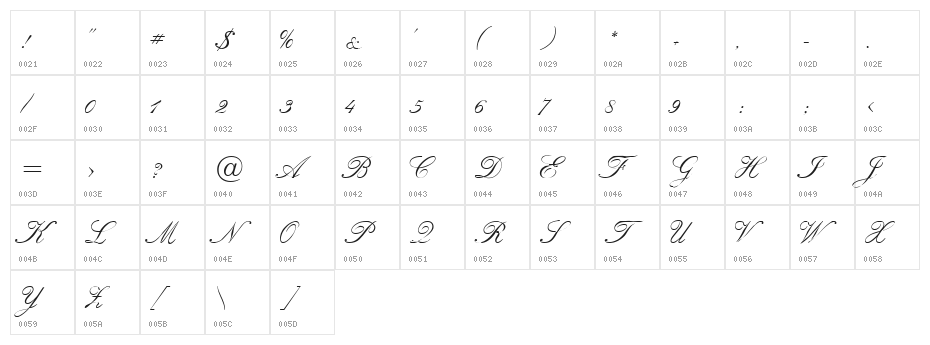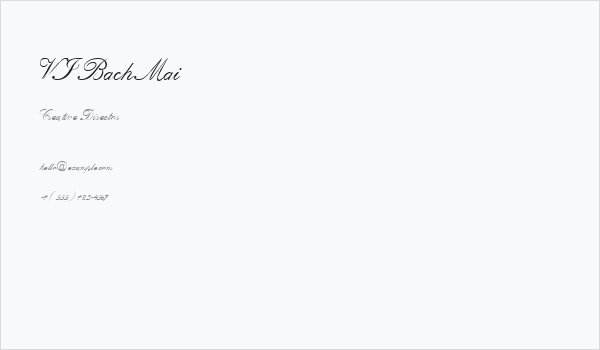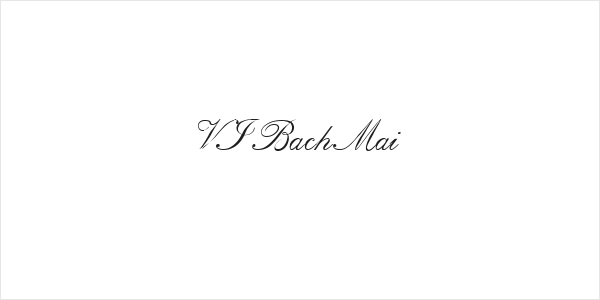
VI Bach Mai Font
VI Bach Mai Description
This elegant script font features a flowing, cursive style with intricate loops and swashes that give it a sophisticated and graceful appearance. The uppercase letters are particularly ornate, with elaborate flourishes that add a touch of luxury and refinement. The lowercase letters maintain a consistent slant, enhancing the fluidity and continuity of the text. Numbers and special characters are designed with the same attention to detail, ensuring a cohesive look across all elements. The font's thin strokes and high contrast between thick and thin lines contribute to its delicate and stylish aesthetic, making it ideal for formal and decorative applications.
| Overall Style | Elegant, Decorative |
| Use Case | Headlines, Invitations, Branding |
| Proposed Projects | Ideal for wedding invitations, luxury branding, elegant stationery, and decorative headlines. |